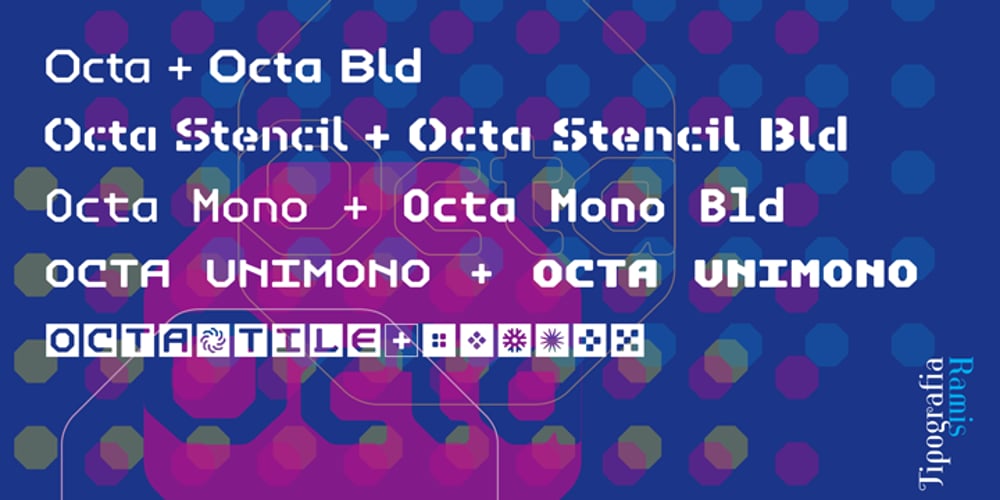
Octa
Octa font
Octa Font Family was designed by Ramiz Guseynov and published by TipografiaRamis. Octa contains 9 styles and family package options. The Octa fonts are primarily intended for heading, display and decorative use. A close relative to Alert, Octa is angular by its structure but soft-outlined typeface with modern industrial strength expression. The Octa group fonts consist of five families – Octa, Octa Stencil, Octa Mono, Octa UniMono and Octa Tile: Octa and Octa Stencil – each family carry two weights of complete characters. Kerning pairs feature is included in both fonts. Octa Mono – two weights font of upper and lower case monospaced characters. Octa UniMono – two weights font of unicase (caps) monospaced characters. Octa Tile – single weight of capital letters, numbers and ornamental dingbats placed on tile squares with white and black backgrounds.